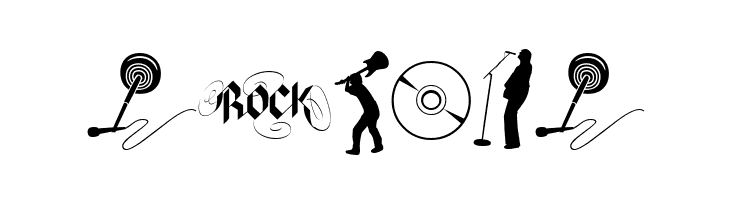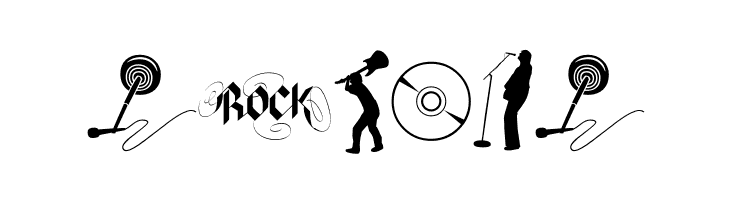
A collection of rock-themed graphics and symbols, not a traditional font.
The image contains rock-themed graphics, not a font.
A collection of rock-themed graphics and icons, not a traditional font.